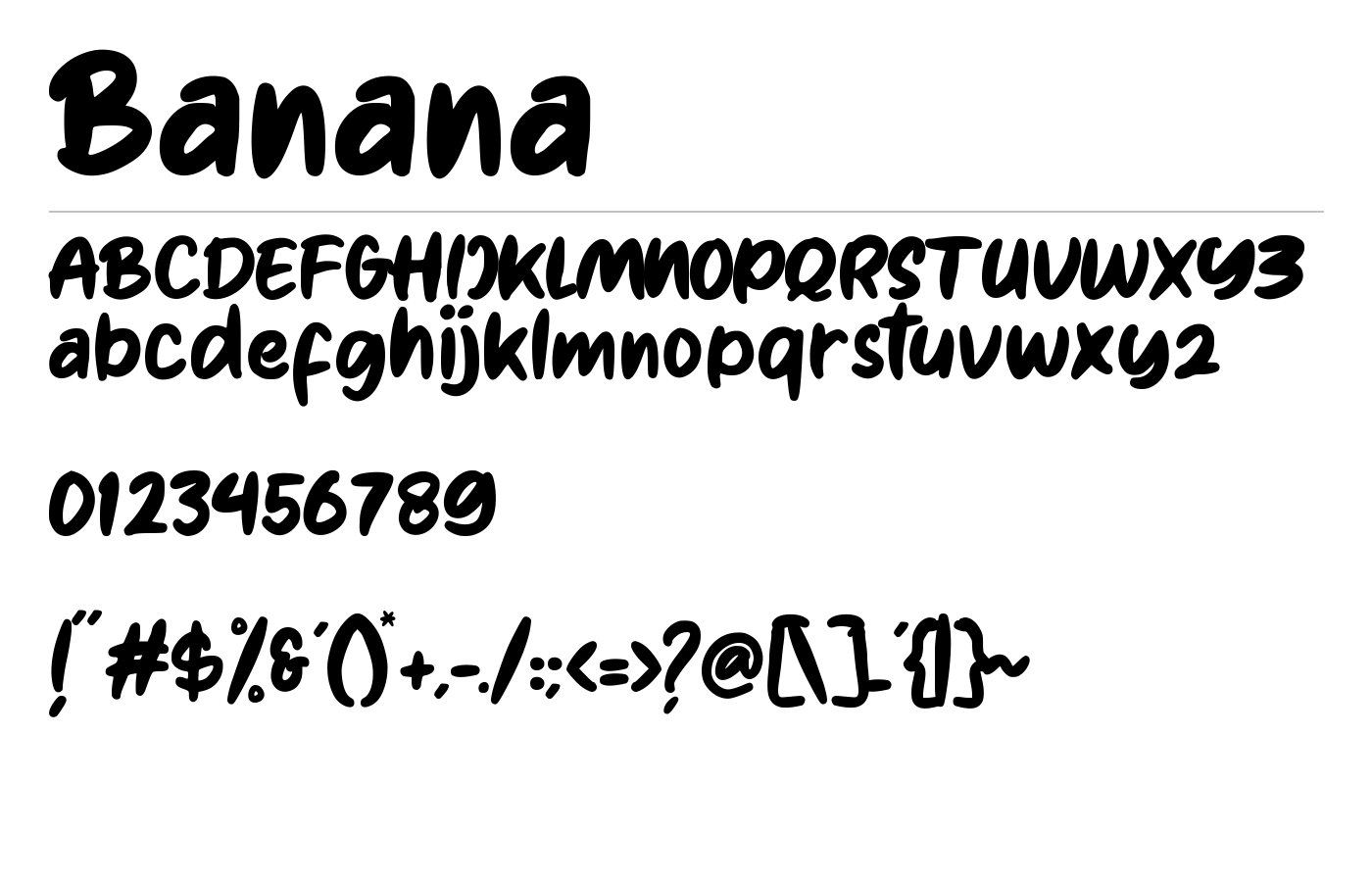
Banana Font is a bold, playful script-style typeface with a casual handwritten feel. Its thick, rounded strokes and lively letterforms give it an inviting and energetic personality, making it ideal for fun, informal designs like children's books, playful branding, or eye-catching headlines. This font works well where a friendly and approachable vibe is desired, adding warmth and character to creative projects.
Banana Font
About Banana Font